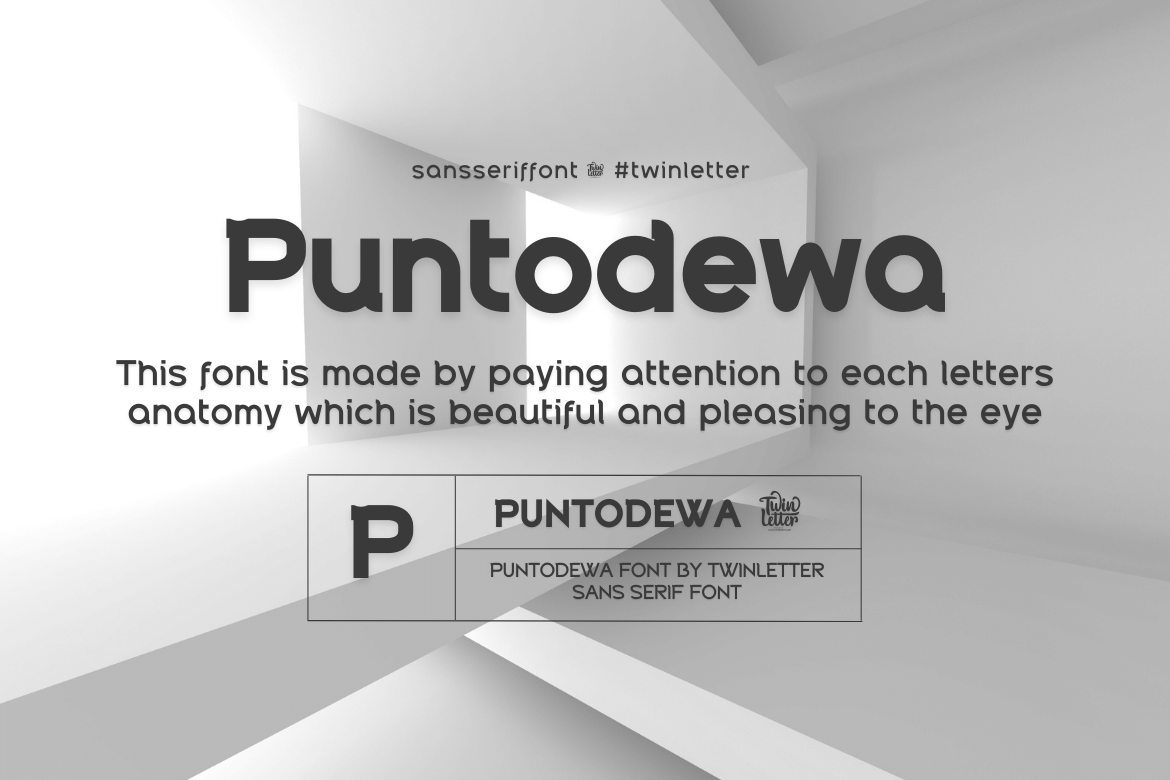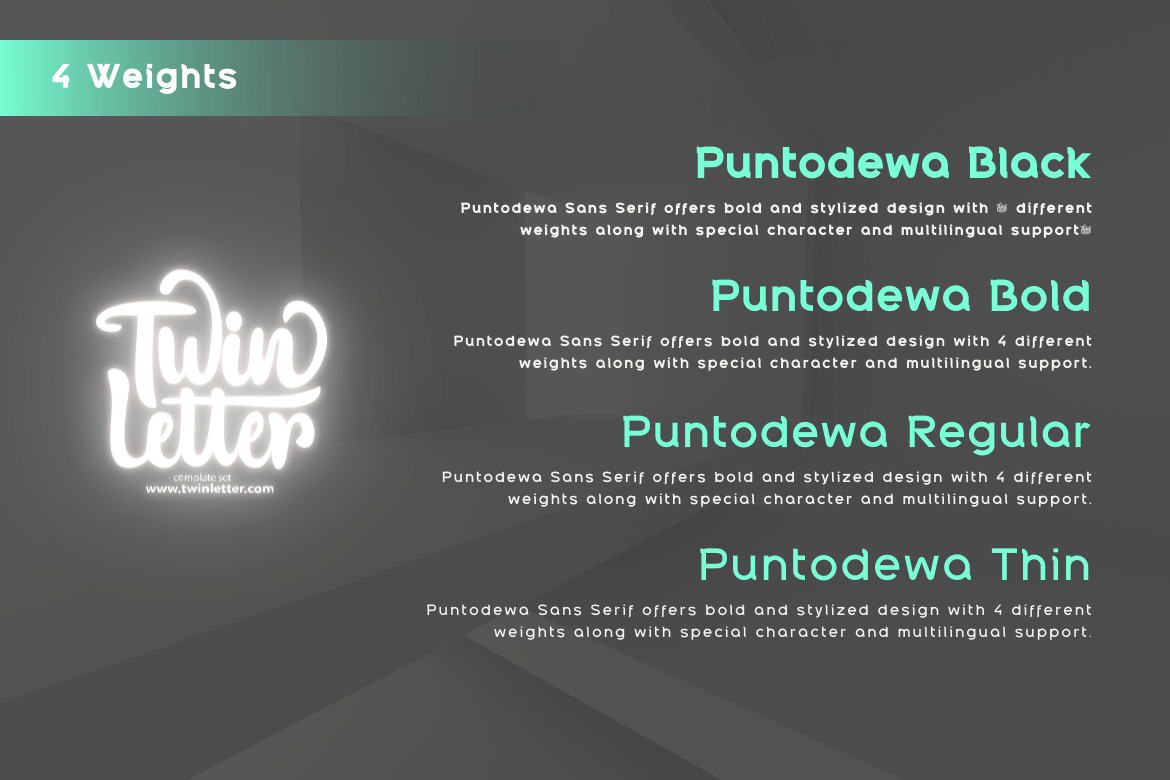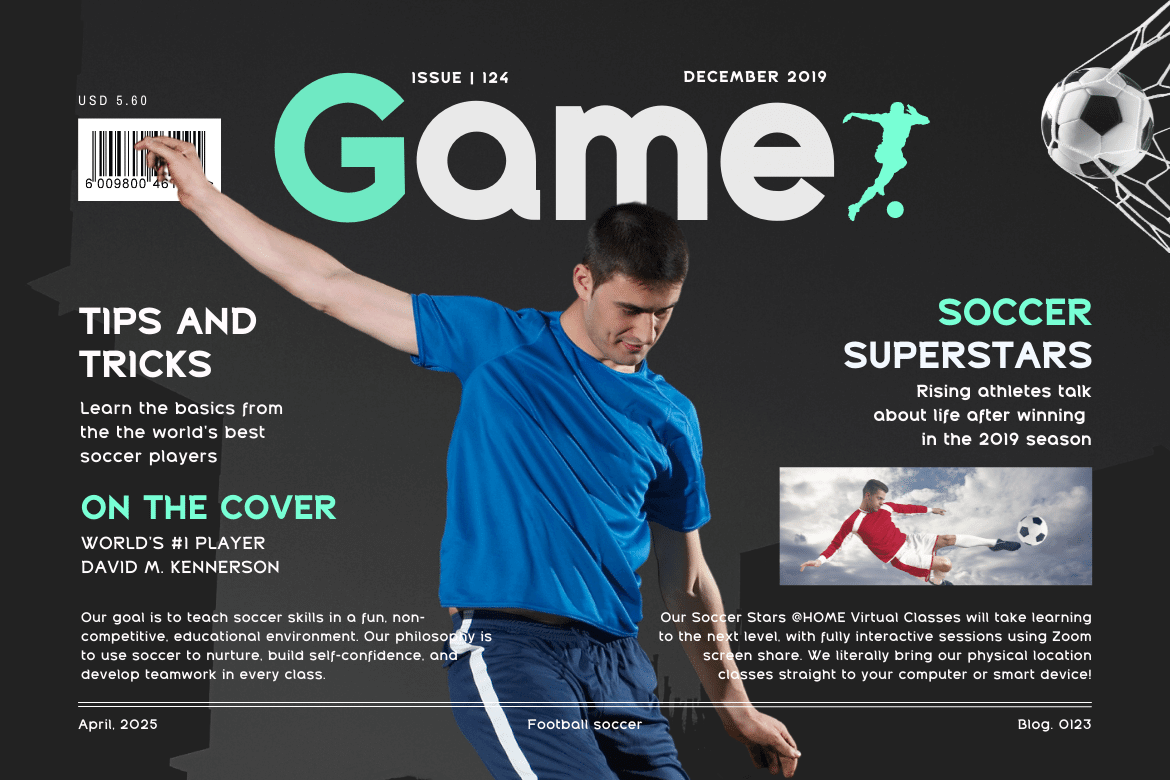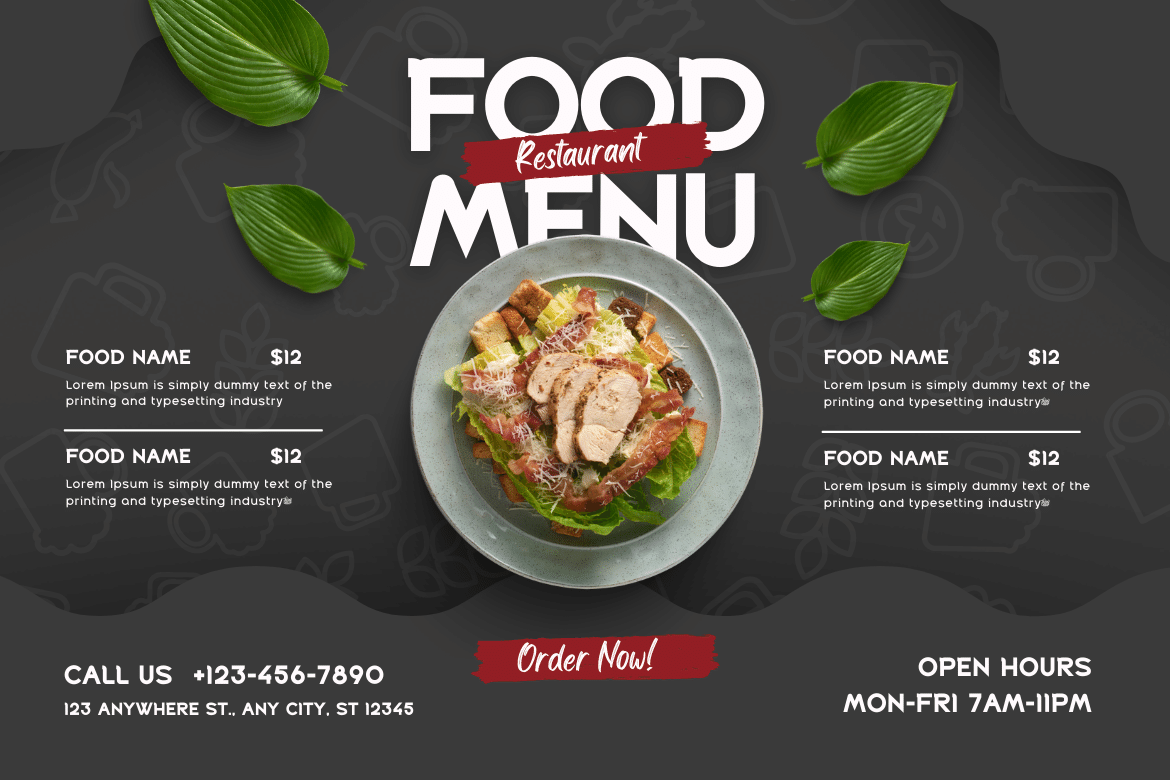
Puntodewa Display Font
The font design is influenced by the Serif family-style and geometric shapes, which makes it easy for us to create compositions in designs that are modern and unique. This font is our best effort to make your project nice and special, and hope you enjoy it.
of course, your various design projects will be perfect and extraordinary if you use this font because this font is equipped with a font family, both for titles and subtitles and sentence text, start using our fonts for your extraordinary projects.